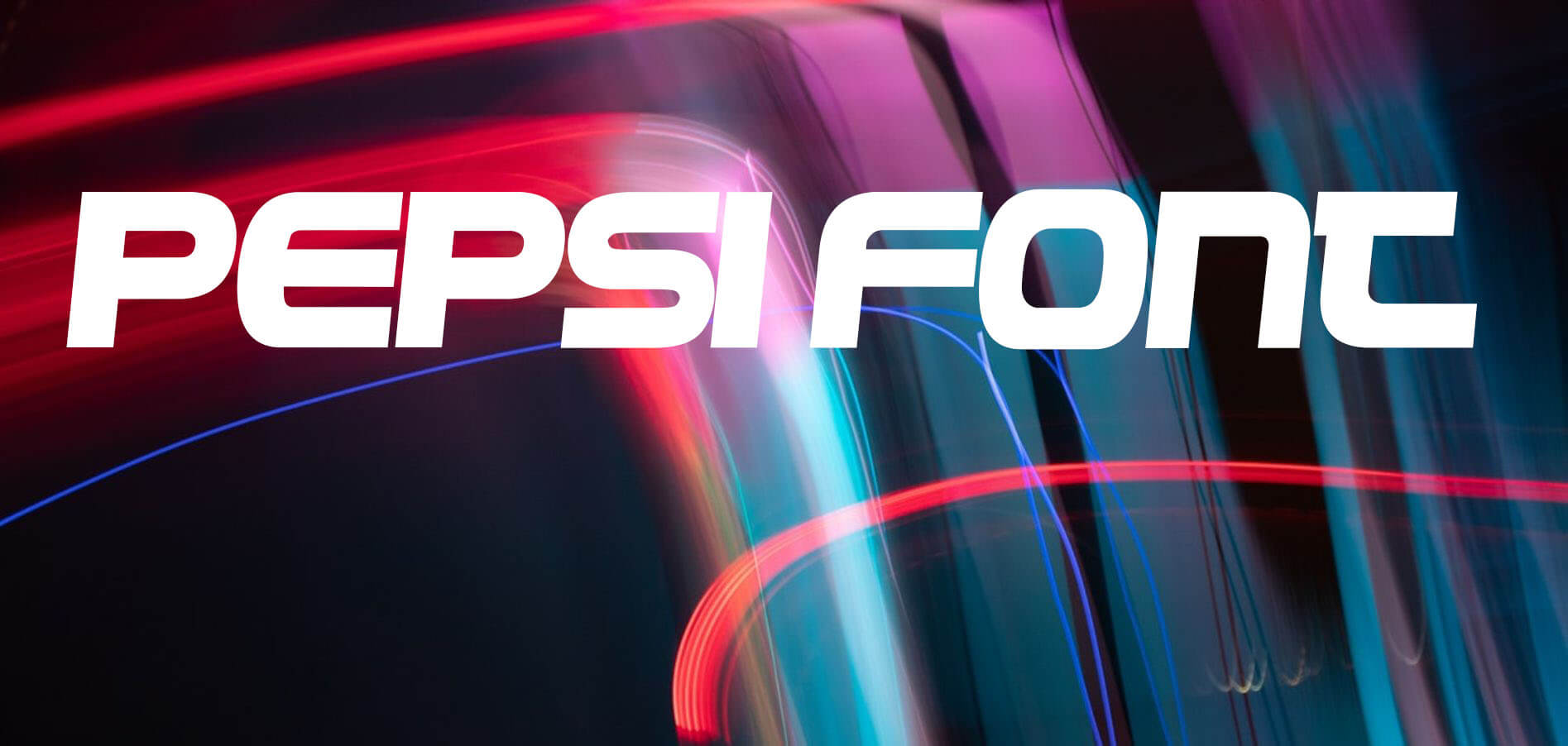
Pepsi Font Family is a very popular sans-serif typeface that was used for the logo title of Pepsi. This amazing typeface was designed by Jakub Degorski. As you know that, Pepsi is a very prominent carbonated soft drink and it was founded by Caleb Bradham as Brad’s Drink in the year of 1886.
The font used for the Pepsi logo is a sans-serif typeface that is known as Pepsi font. It was designed by Jakub Degorski. This font comes in one regular style and advanced features as well as 80 unique glyphs and 266 interesting characters.
Pepsi Font Family